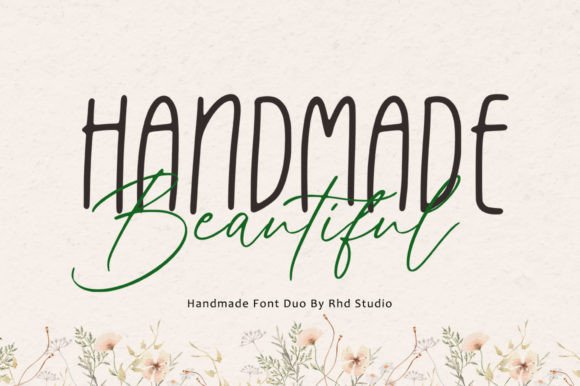
Journey into the world of Handmade Beautiful, a font family that captures the essence of elegance and charm. Inspired by the intricate details of handcrafted artistry, this collection of two fonts, Script and Display, harmonizes to create a visually captivating experience.
Let your designs bloom with the graceful strokes of the Script font. Its cursive nature evokes a sense of playfulness and warmth, making it perfect for branding, logos, and invitations that demand a personal touch. The Display font, with its bold and expressive characters, adds a touch of drama and makes a statement in headlines, posters, and social media graphics.
With Handmade Beautiful, you'll discover endless possibilities for creative expression. Dive into a world of swirling letters, dancing baselines, and enchanting ligatures that bring your words to life. Each character is meticulously crafted to exude a sense of luxury and sophistication, ensuring your designs stand out from the crowd.
Unleash your creativity and embark on a journey of visual storytelling with Handmade Beautiful. Its versatility extends beyond the realm of branding and marketing, making it a perfect choice for crafting heartfelt letters, delightful invitations, and personalized gifts. Let your designs radiate with the charm of handcrafted artistry and captivate the hearts of your audience.